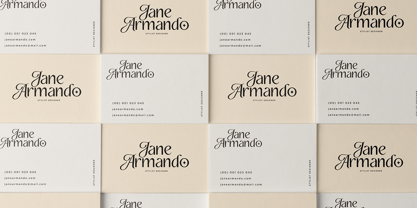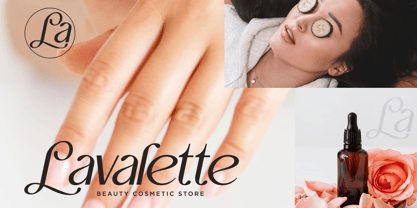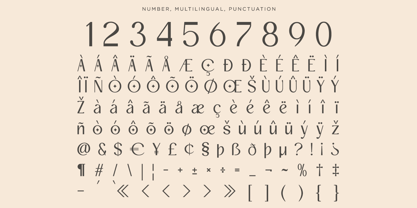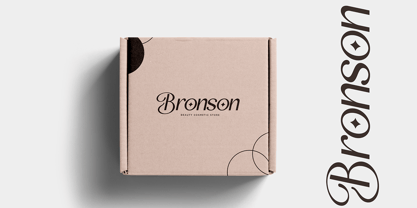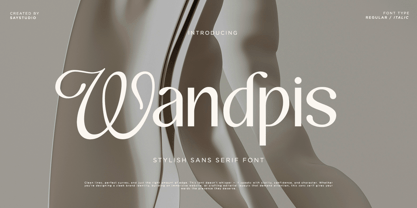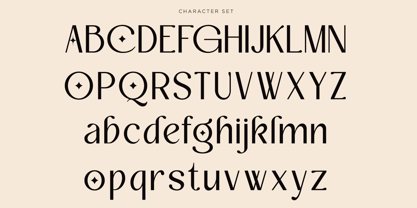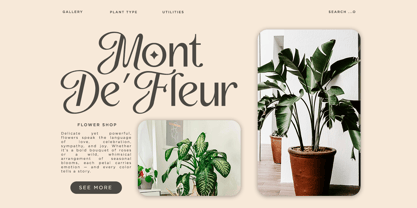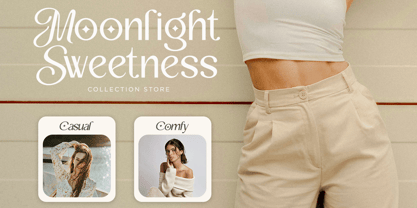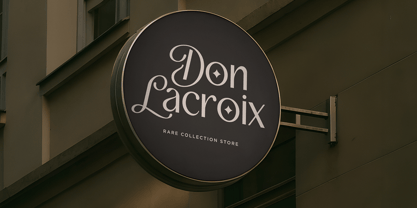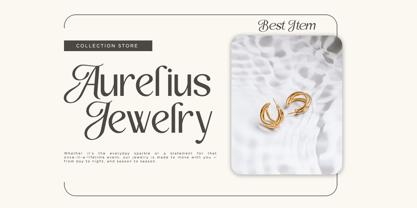
Wandpis
Wandpis is stylish sans serif font that we created special for elegant branding needs, with unique shape will be ready to add value of your brand. It so nice to leverage designer or product owner that need solutions to make their design look more Luxury and modern. Perfect for logos, branding, social media posts, web designs, and editorial layouts. Fully compatible with Adobe Illustrator, Photoshop, and Canva. Wandpis Included : - Wandpis Regular - Wandpis Italic - Stylistic Alternates - Multilingual Support Thanks, have a nice day Say Studio